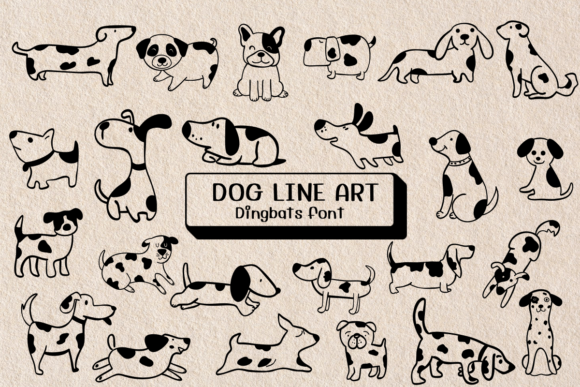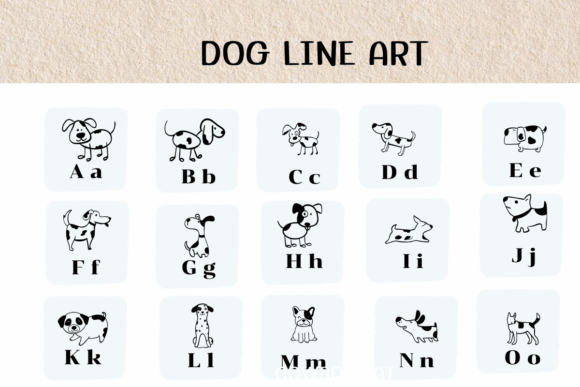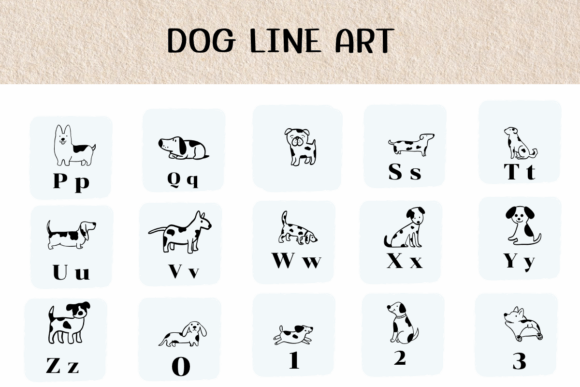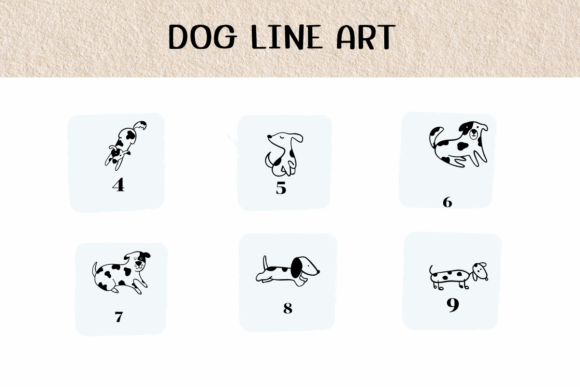
Dog Line Art Font
About the Dog Line Art Font
Experience the unique personality of Dog Line Art Font, a font designed for impact. Dog Line Art is a fun dingbat font filled with adorable puppy designs. Each letter or number turns into a cute, simple line drawing of dogs. Perfect for pet lovers, creative projects, and adding a playful touch to your designs! 🐶
Dog Line Art Font shines in applications requiring a lighthearted and playful touch. It’s ideal for children’s books, pet-related branding, greeting cards, and social media graphics where its charming illustrations add visual appeal. However, it’s less suitable for body text or situations demanding high readability, such as websites or lengthy documents. The limited character set also restricts its use in large text blocks.
For optimal visual harmony, pair Dog Line Art with a clean sans-serif like Open Sans for body text, creating a balance between playful illustration and clear readability. Alternatively, a slightly more whimsical script font such as Pacifico could enhance the overall fun and friendly aesthetic.
The font’s core personality is undeniably cheerful and friendly, making it perfect for projects targeting a young or family-oriented audience. Avoid using it for brands that aim for sophistication or seriousness.
Dog Line Art Font Usage Examples
Dog Line Art Font Example